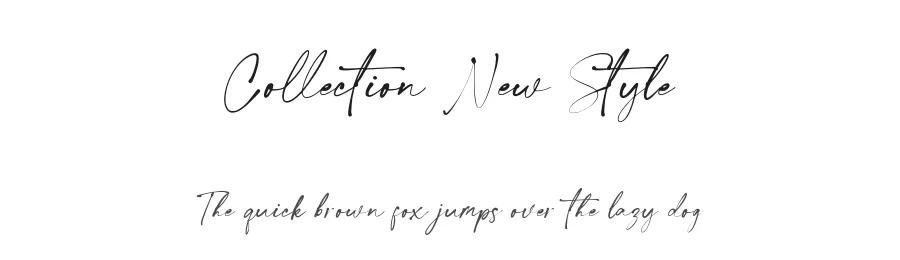
About Battofi Font
Introducing the new "Battofi" script font. A beautiful script font with elegant stylish extras and 31 ligature to complete your needs.
With built in Opentype features, this script comes to life as if you are writing it yourself.
This font is very good with additional alternatives like multilingual support.
This font look natural, modern but classic and elegant, very suitable to make a branding, magazine, fashion, quotes, logo, packaging, and other.
Battofi Font